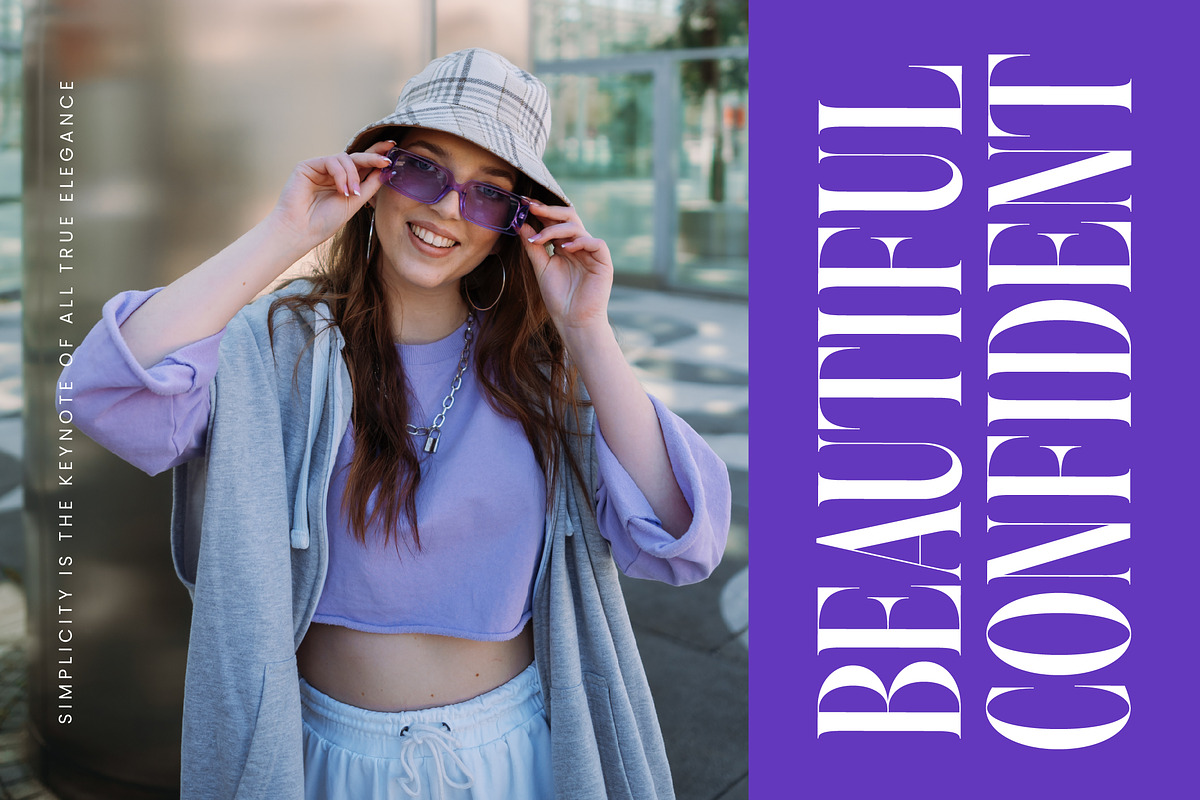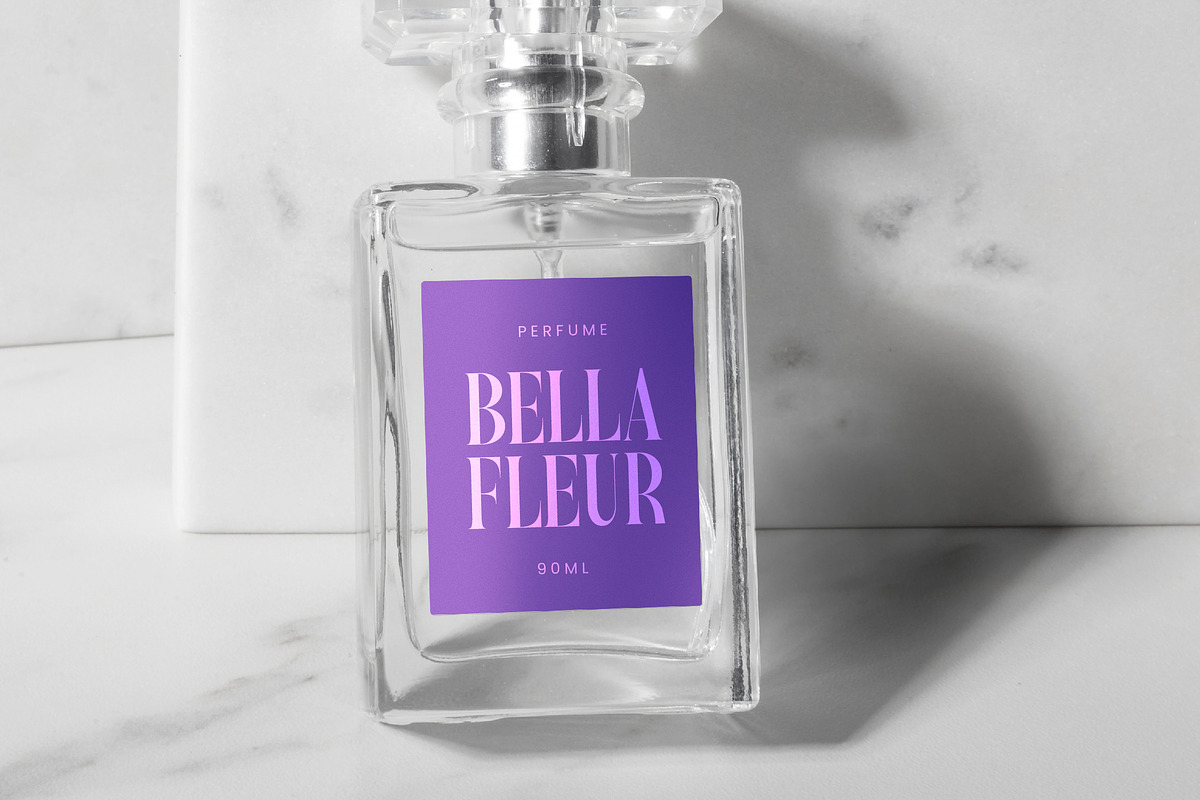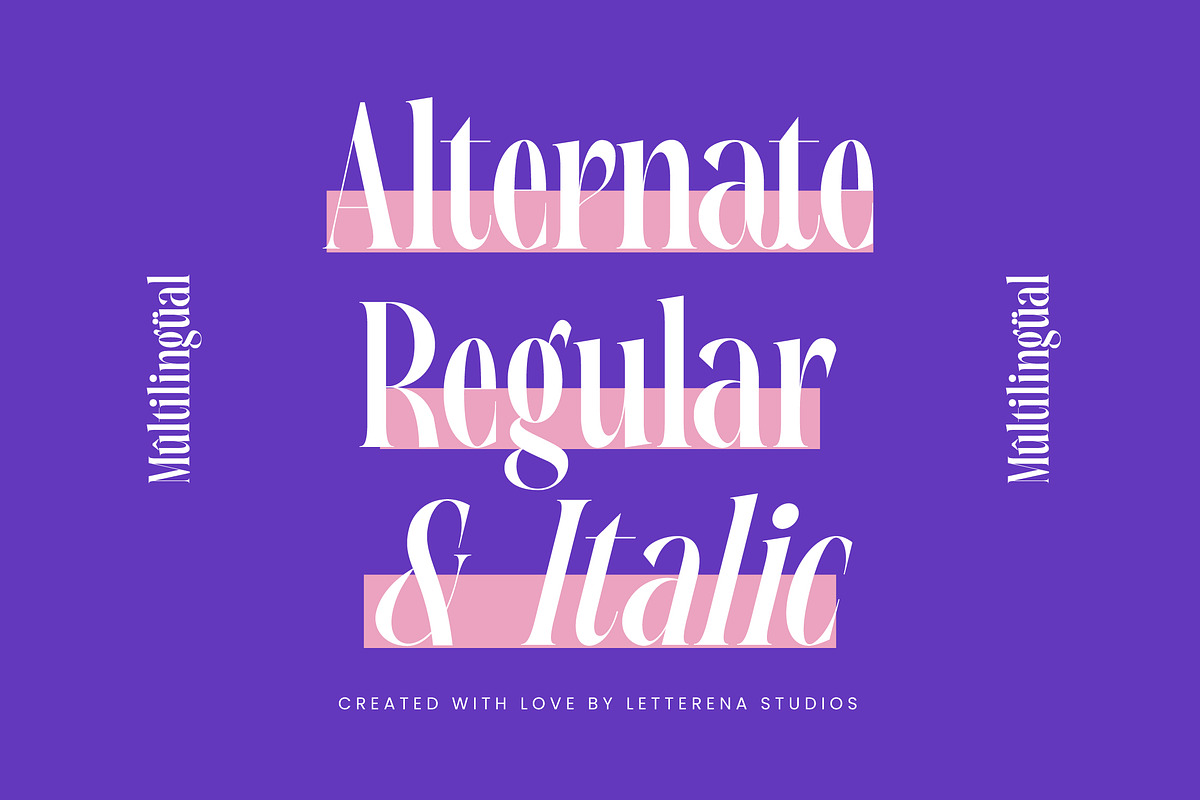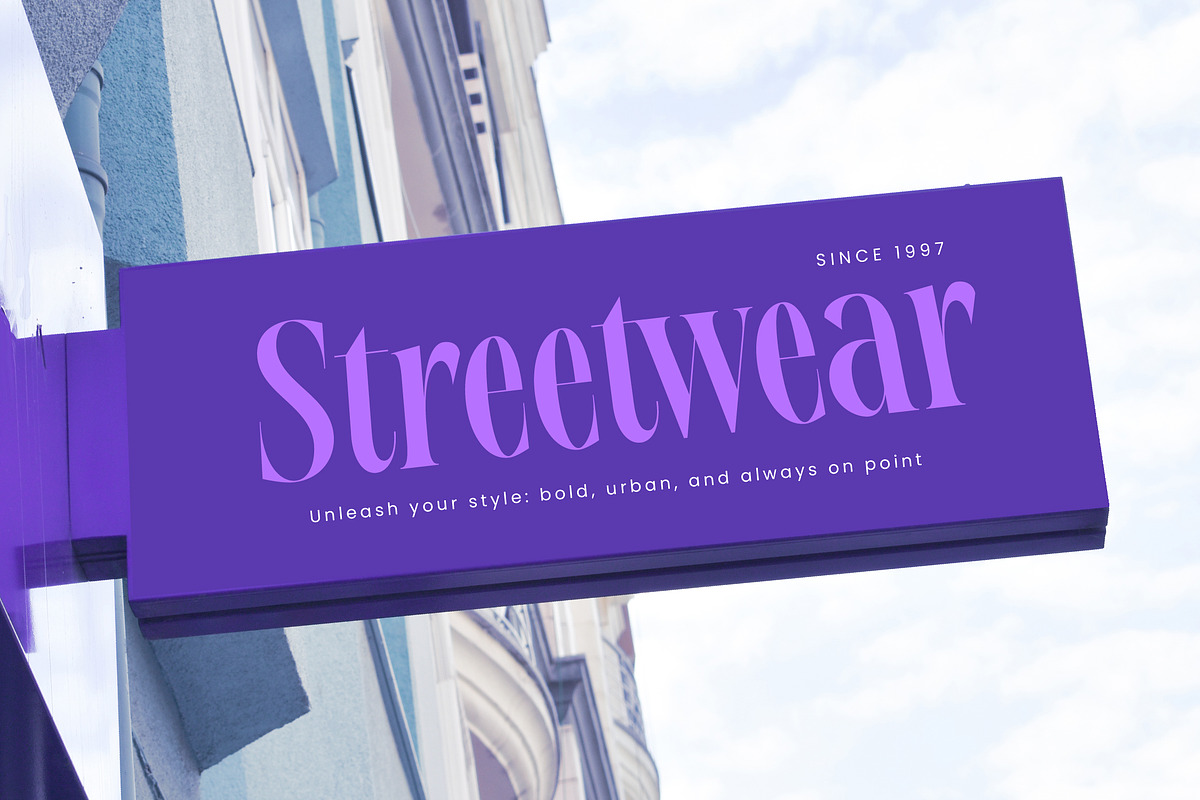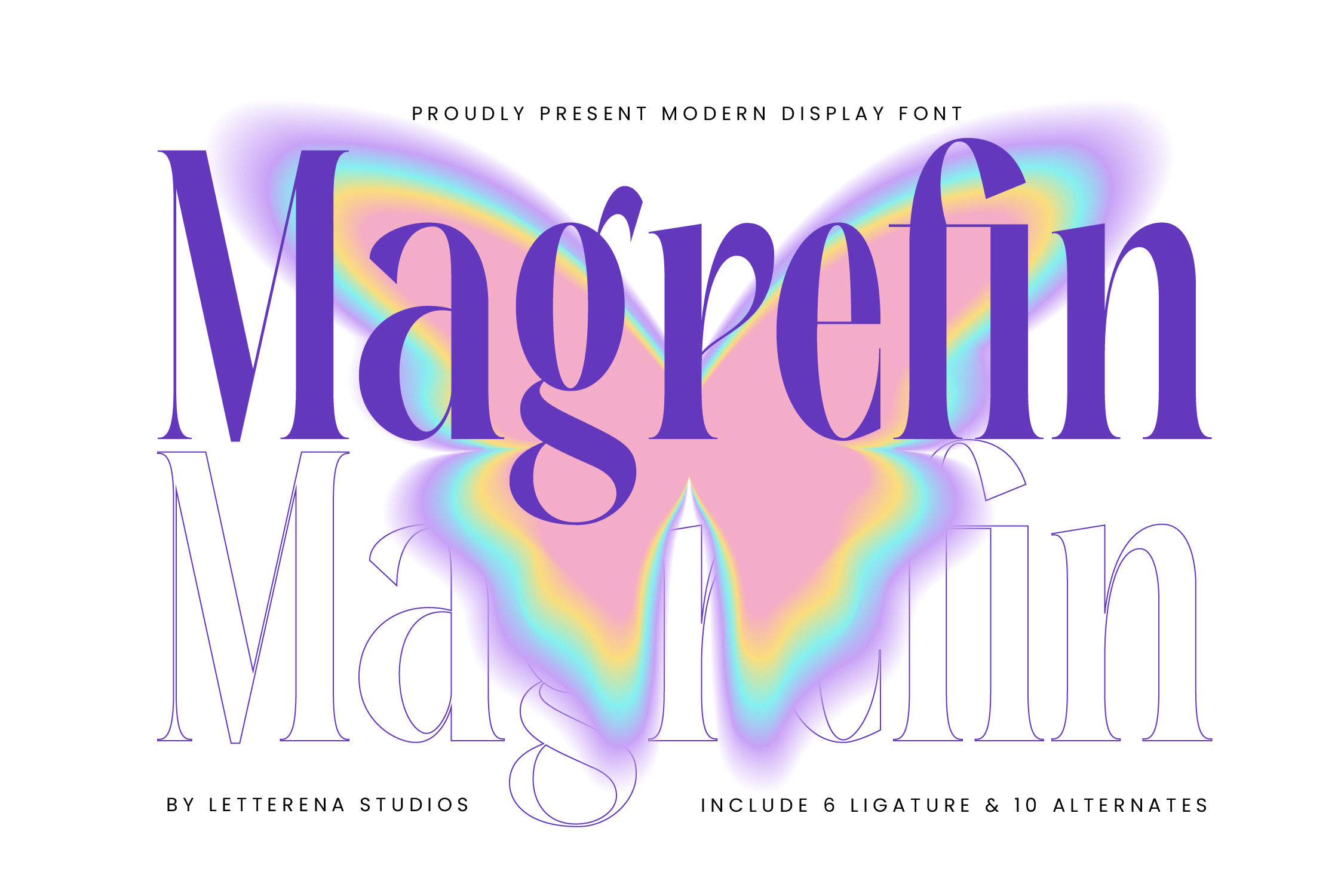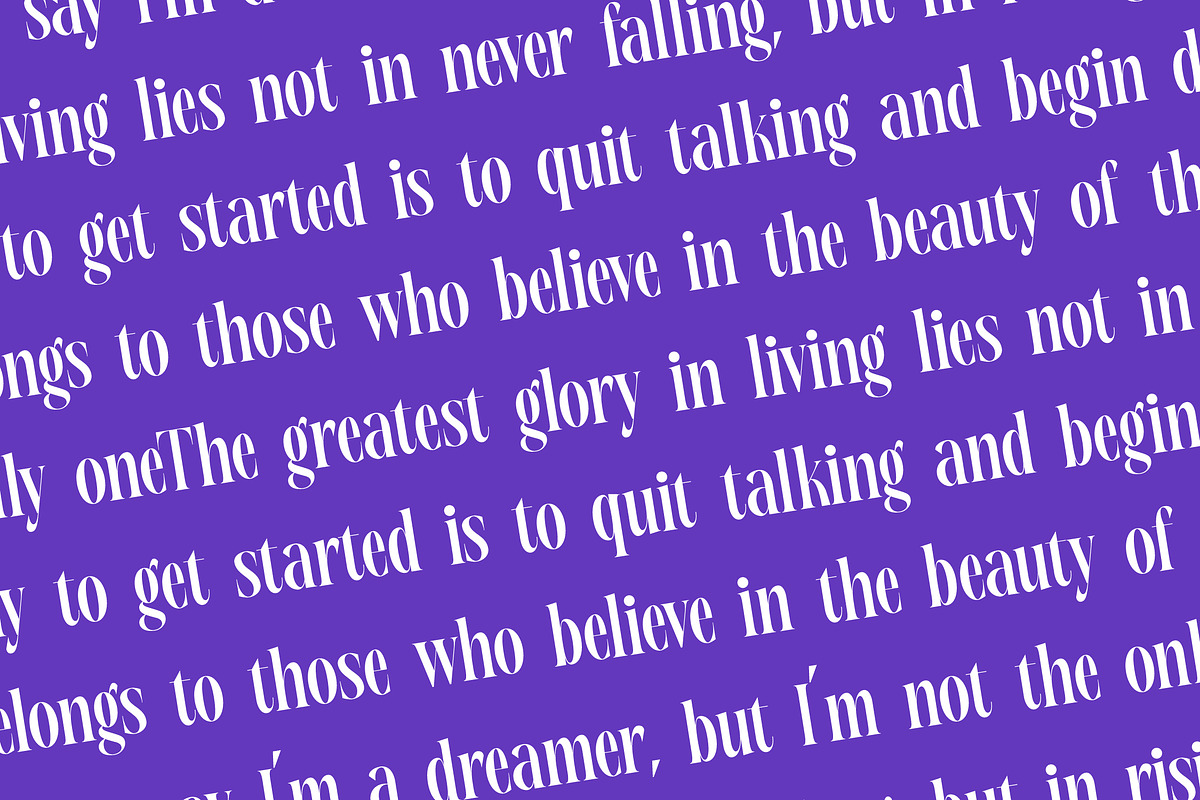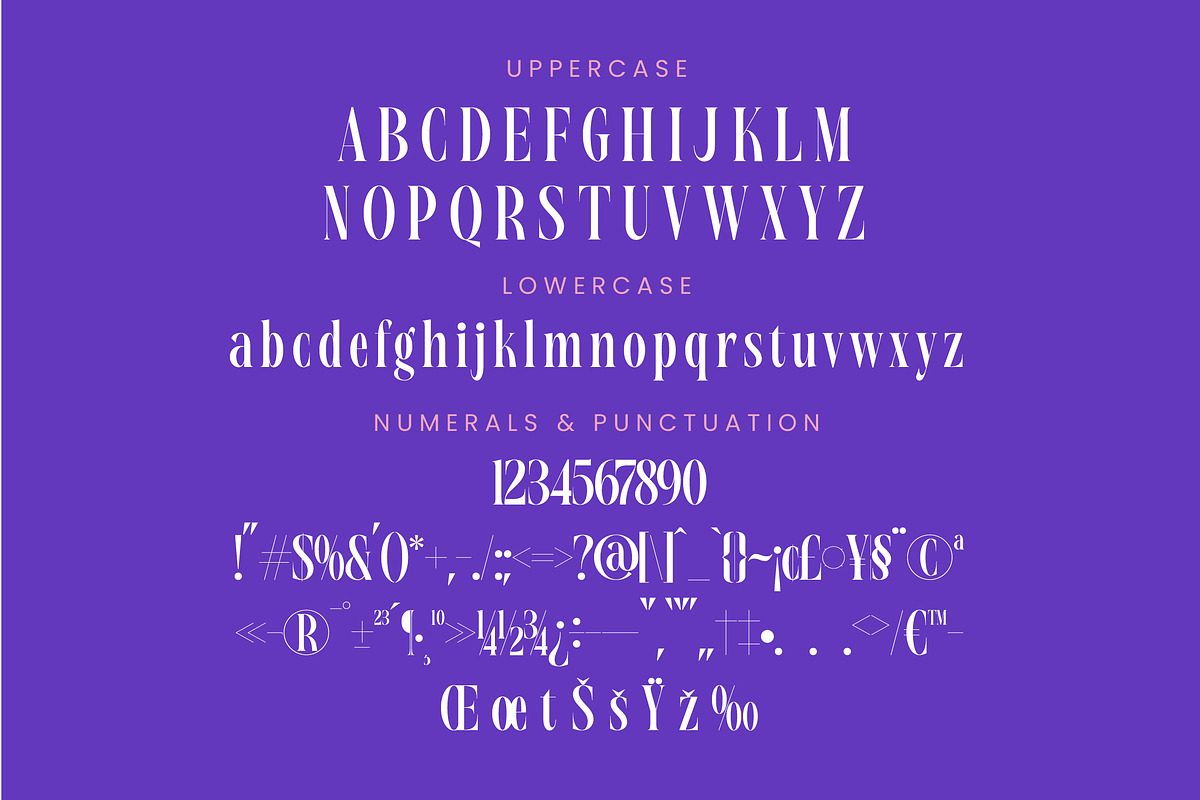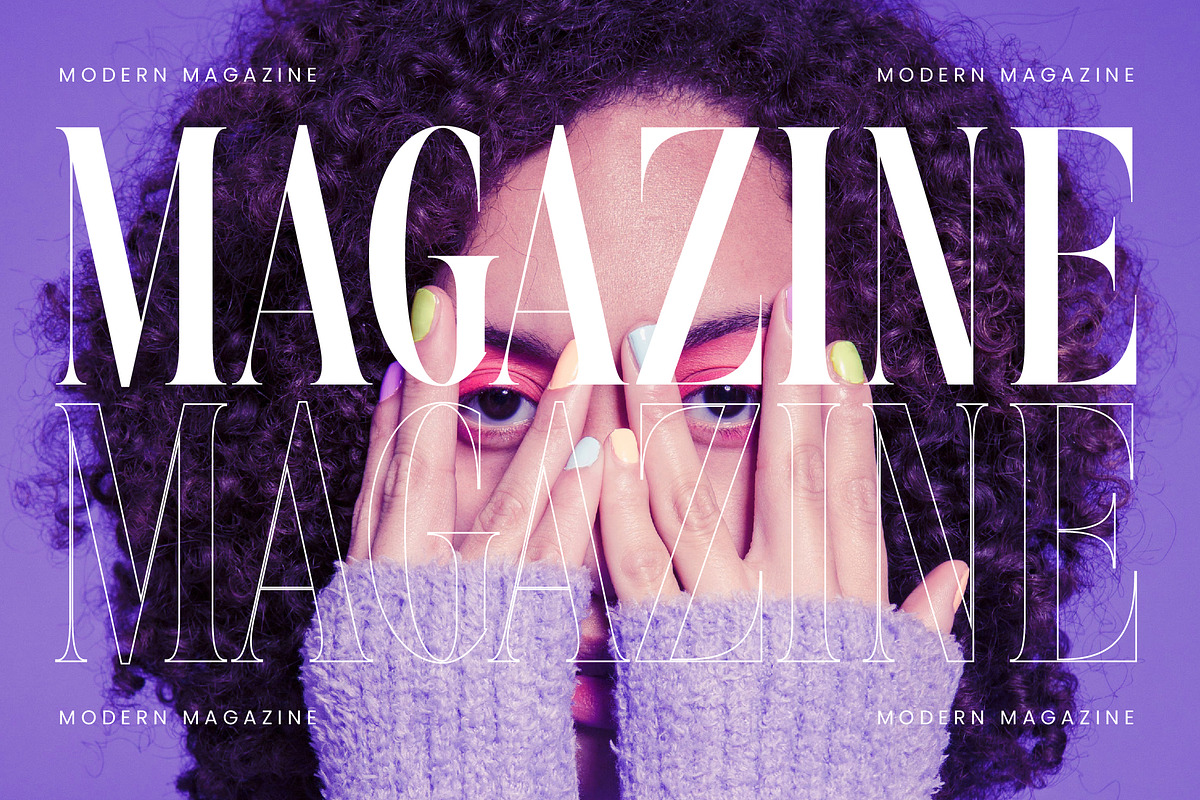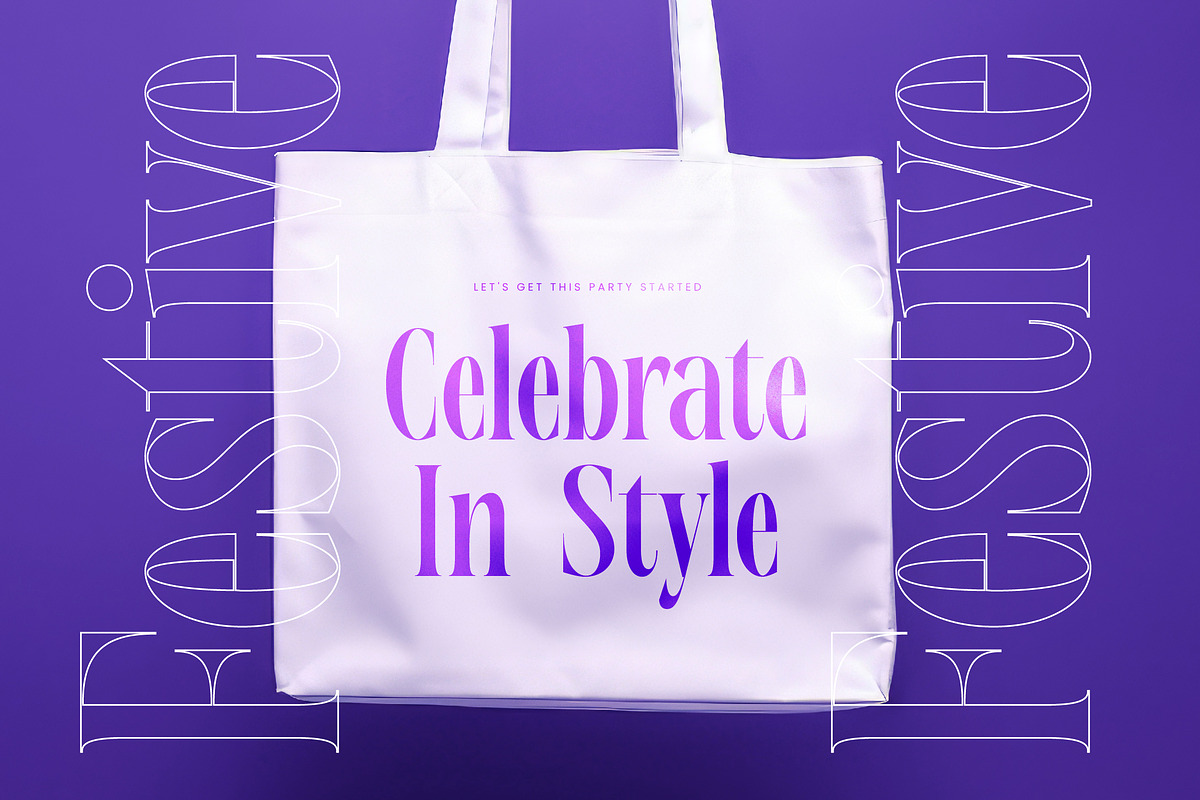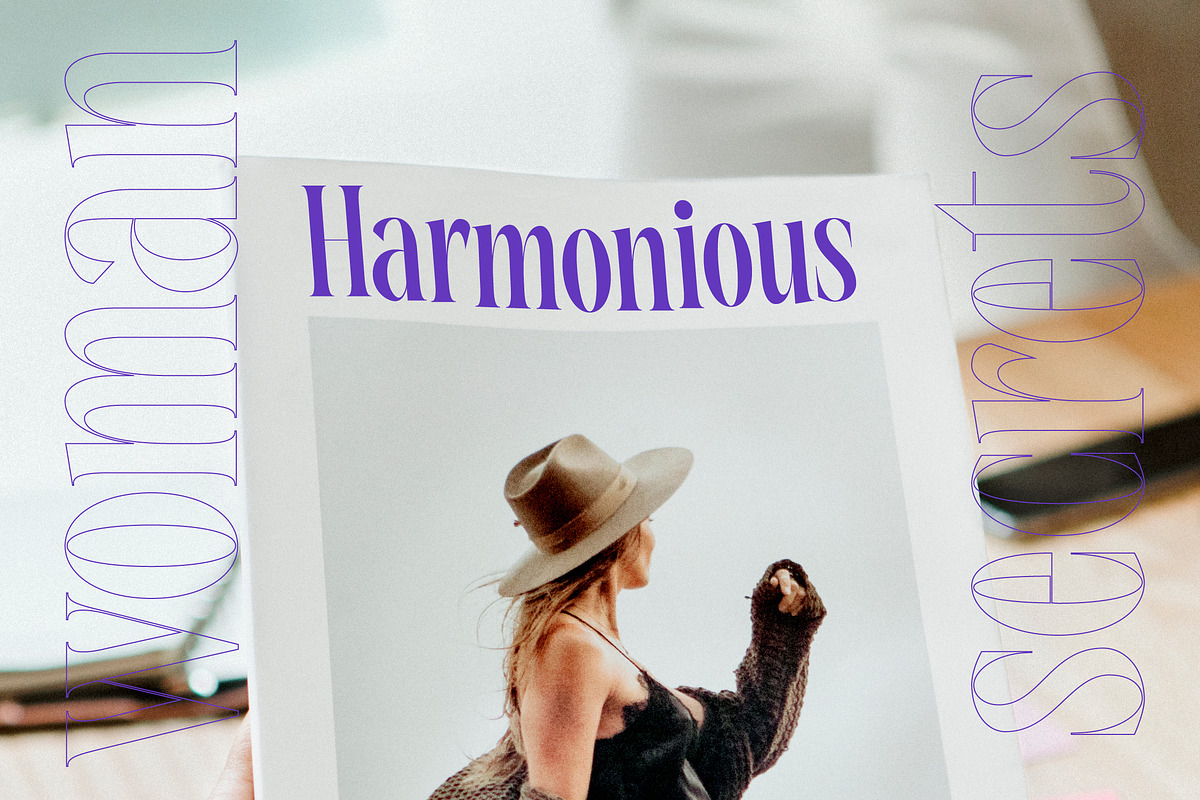
Magrefin Modern Display Font
Magrefin - Modern Display Font , from Letterena, is a Luxury Serif font, suitable for any projects such as: logos, branding projects, homeware designs, product packaging, mugs, quotes, posters, shopping bags, t-shirts, book covers, name card, invitation cards, greeting cards, label, photography, watermark, special events, and all your other luxury and beautiful projects that need a Luxury Serif taste.